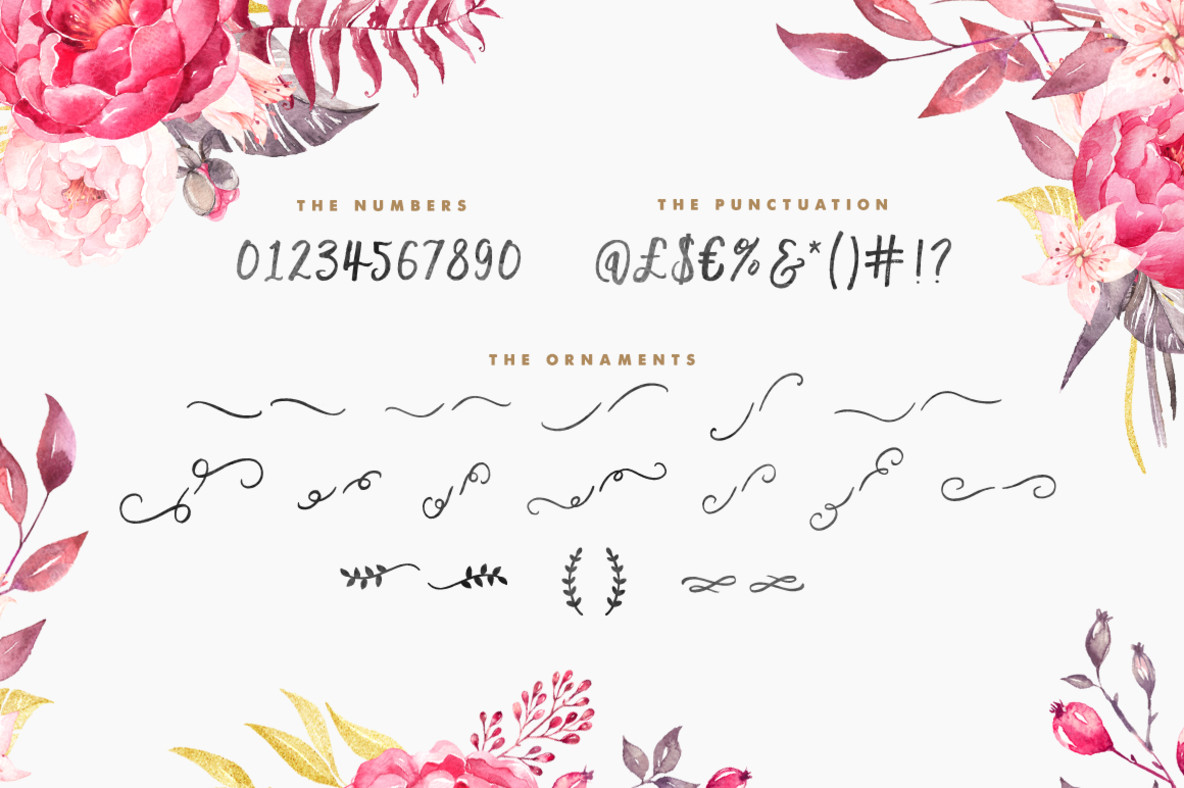
Madina Clean Regular Font Free Download. This font has 2 styles, slant, and regular. Replaces a sequence of glyphs with a single glyph which is preferred for typographic purposes.
Ttf otf waterfall 179 characters. And the best part of them, when they jointly use then they work in a fine. Madina feels both magical and elegant.